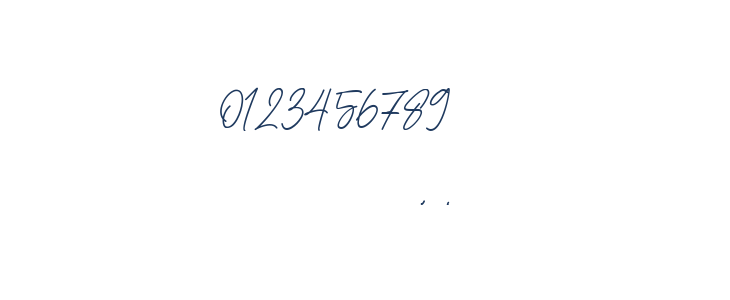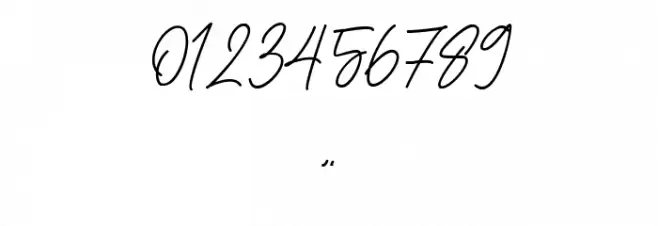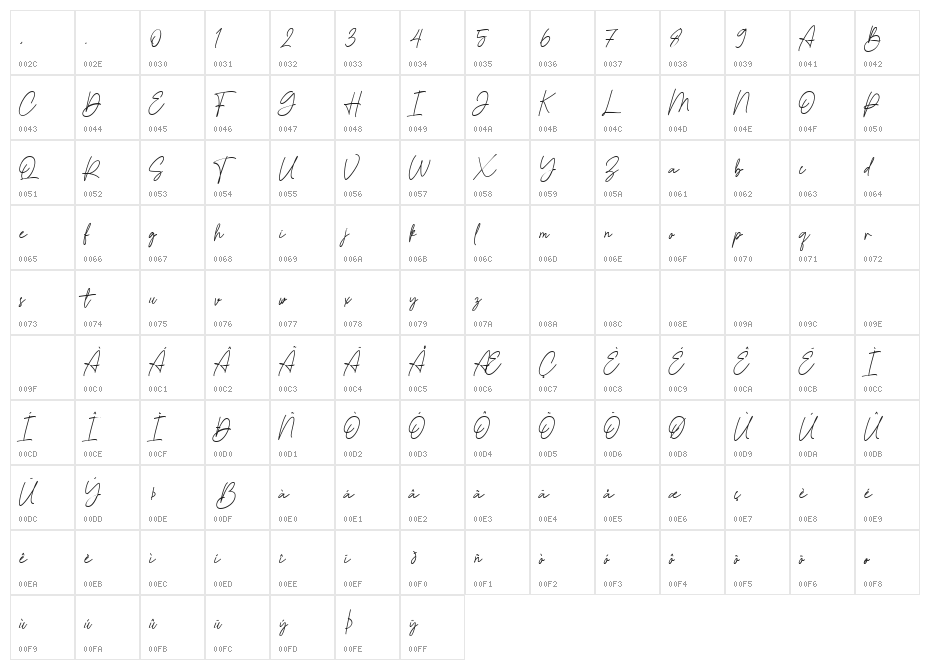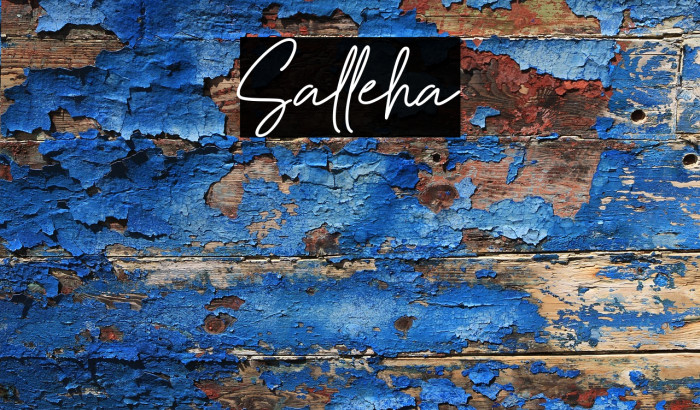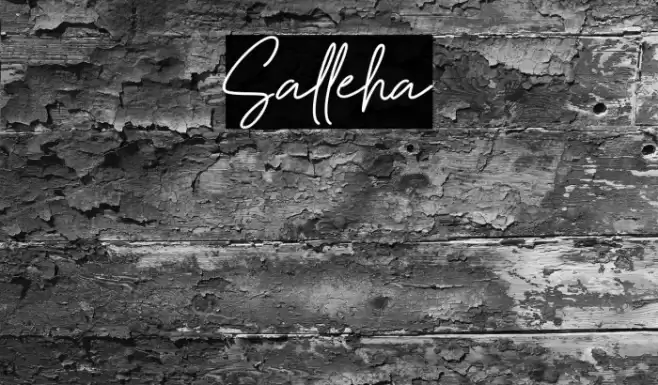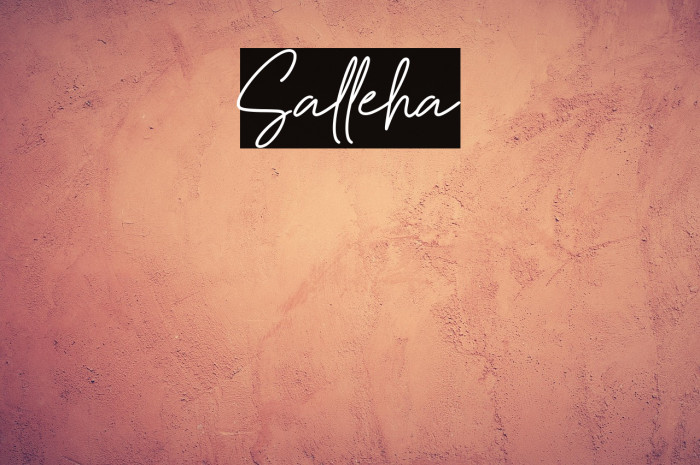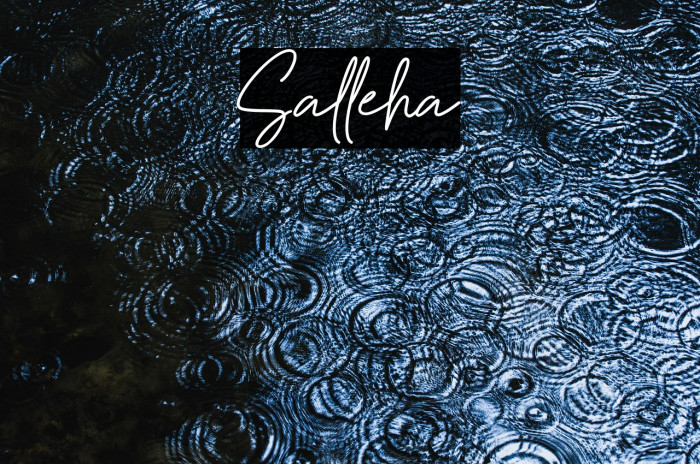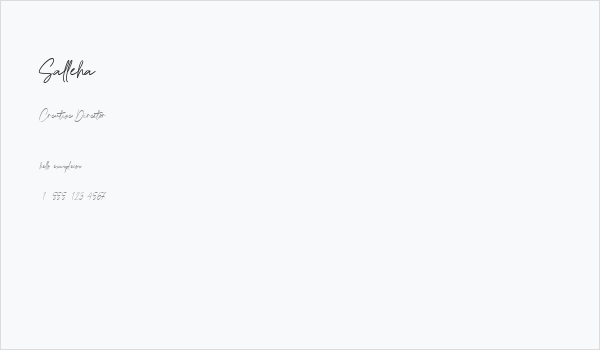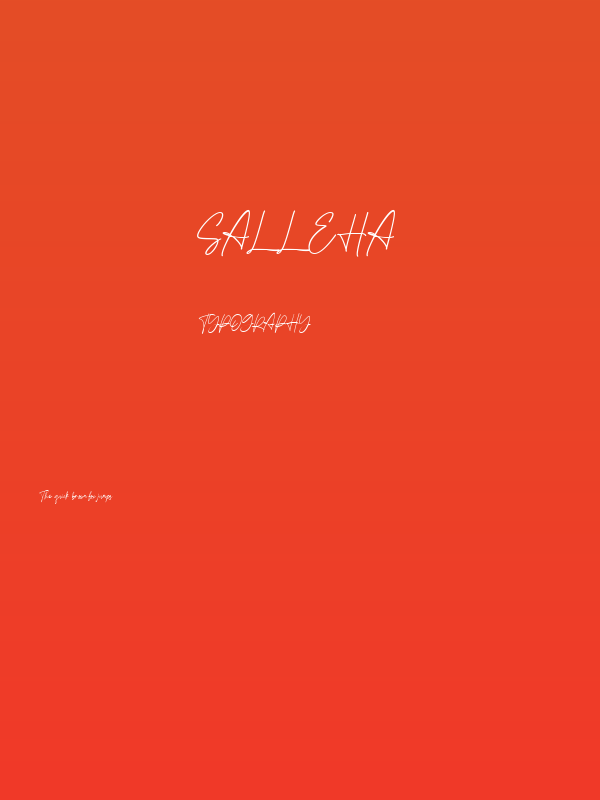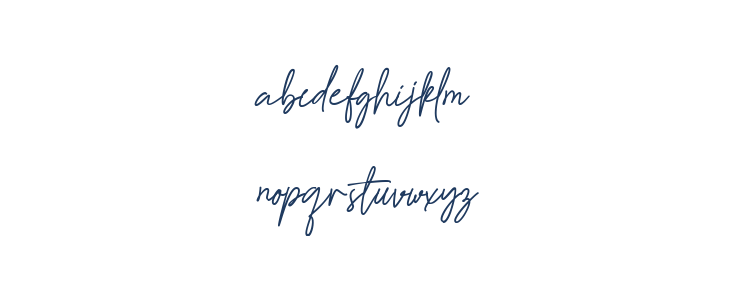
Salleha Font
Salleha Description
This font exudes a modern and elegant handwritten style, characterized by its fluid and cursive strokes. The letters are connected in a natural flow, giving it a personal and artistic touch. The uppercase letters are tall and slightly narrow, while the lowercase letters maintain a consistent height, adding to the overall harmony of the design. The numerals are distinct and easy to read, complementing the alphabet with their smooth curves. The special characters are seamlessly integrated, maintaining the font's cohesive appearance. This font is perfect for projects that require a personal and sophisticated touch, such as invitations, greeting cards, and branding materials.
| Use Case | Logos, Headlines, Personal projects |
| Proposed Projects | Ideal for invitations, greeting cards, branding, and personal projects. |